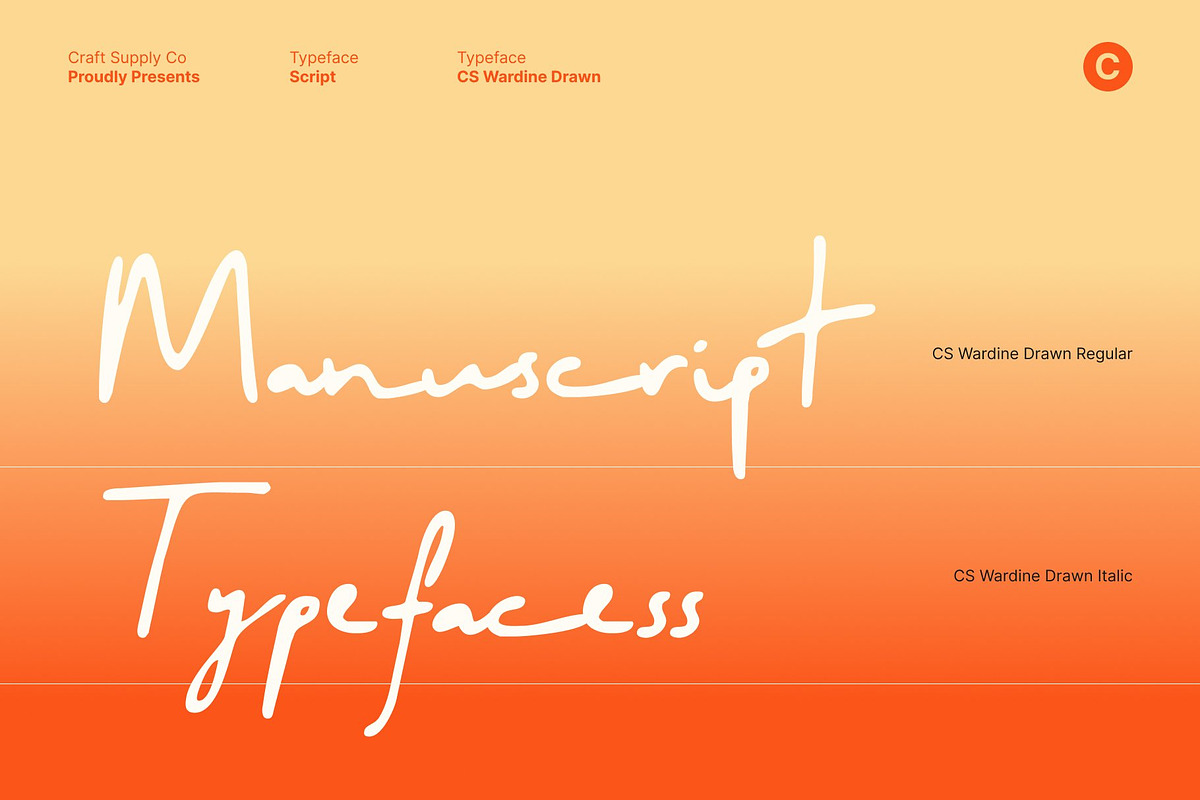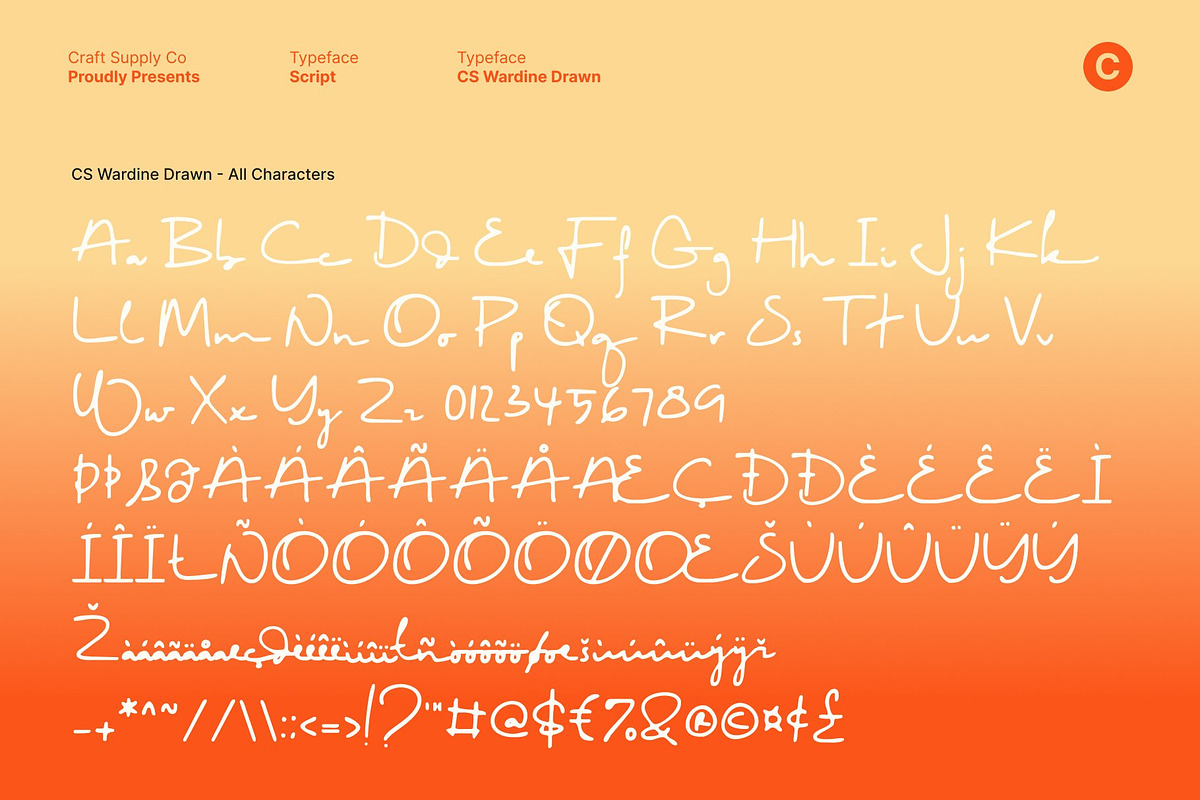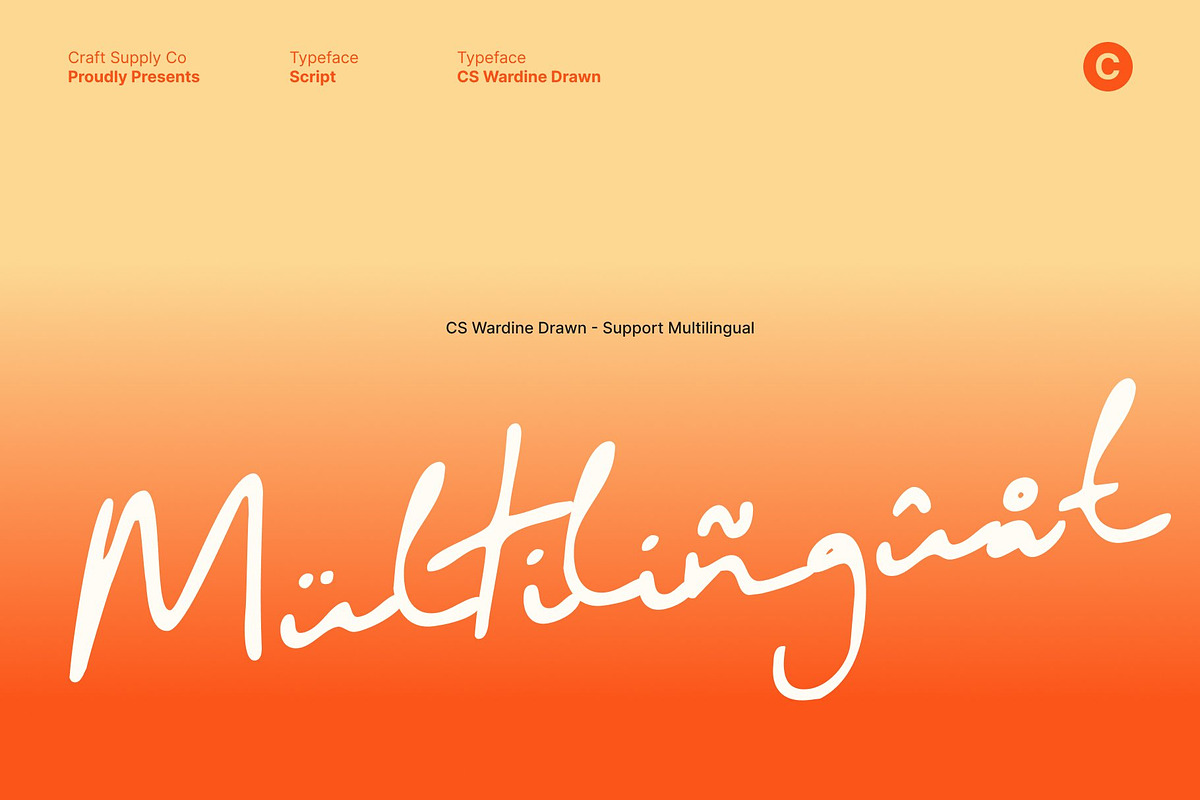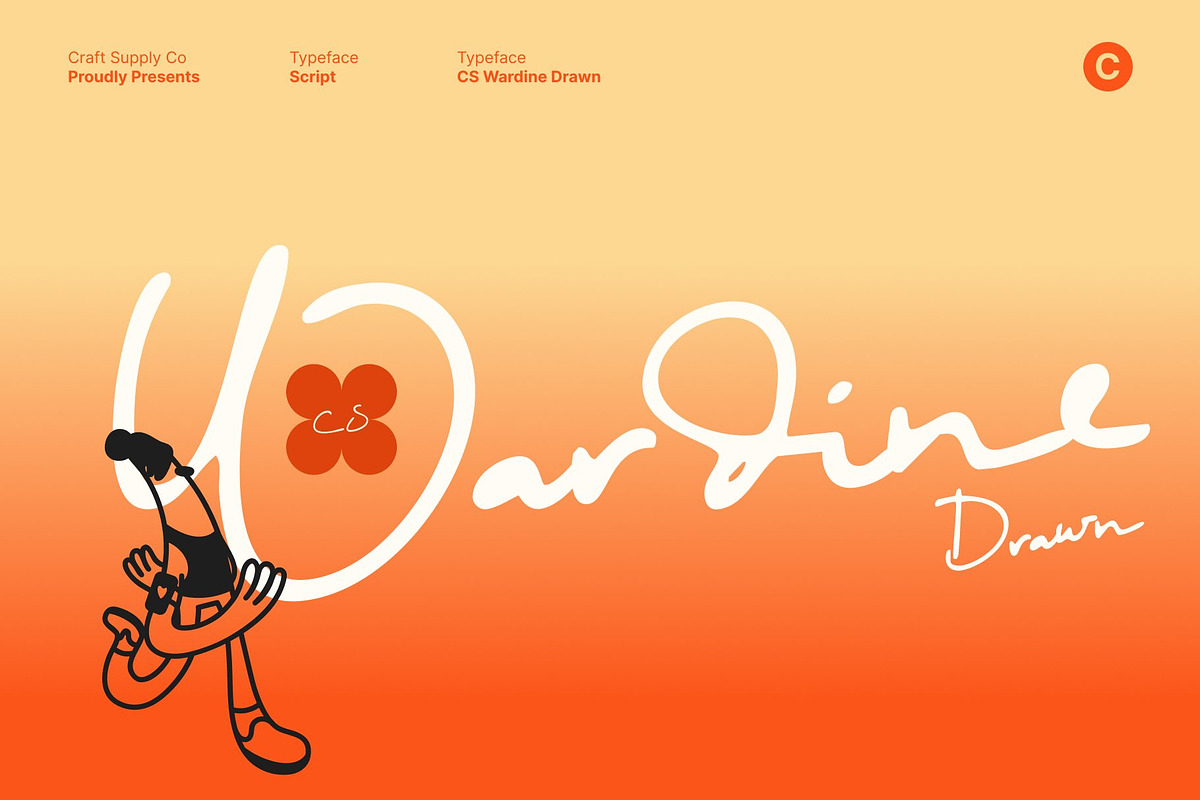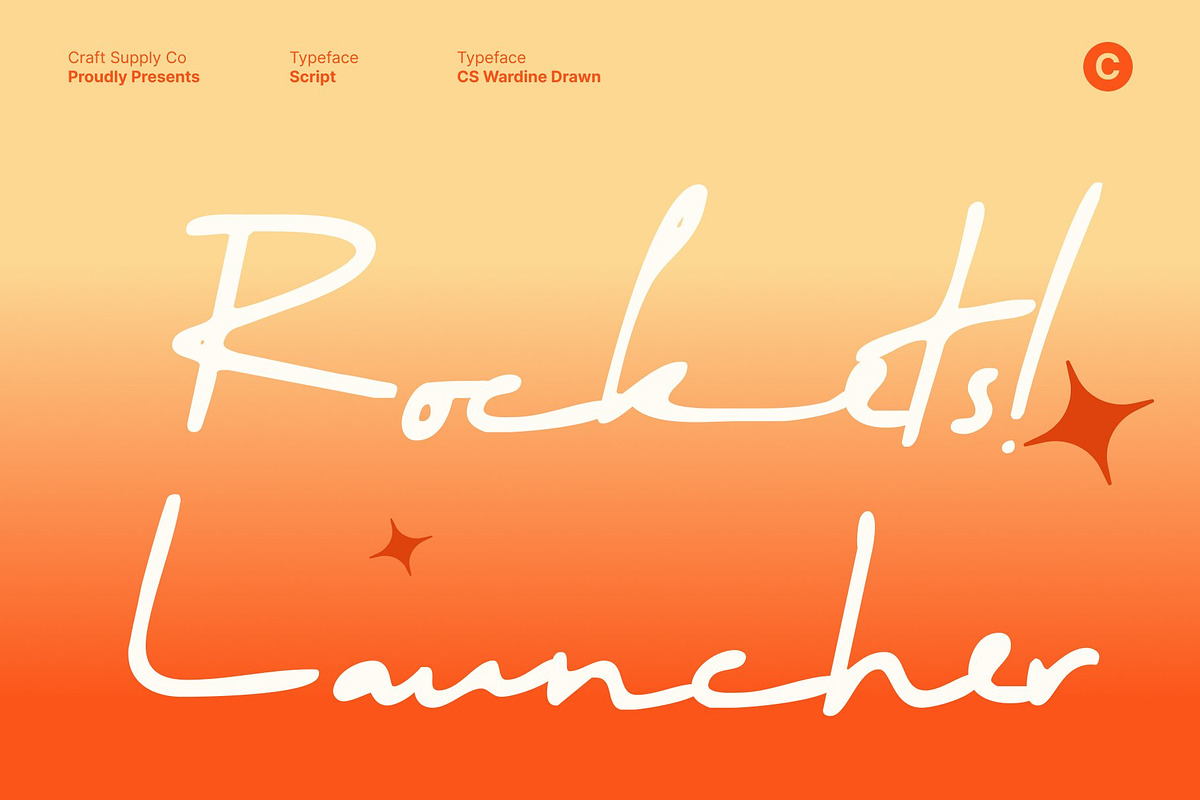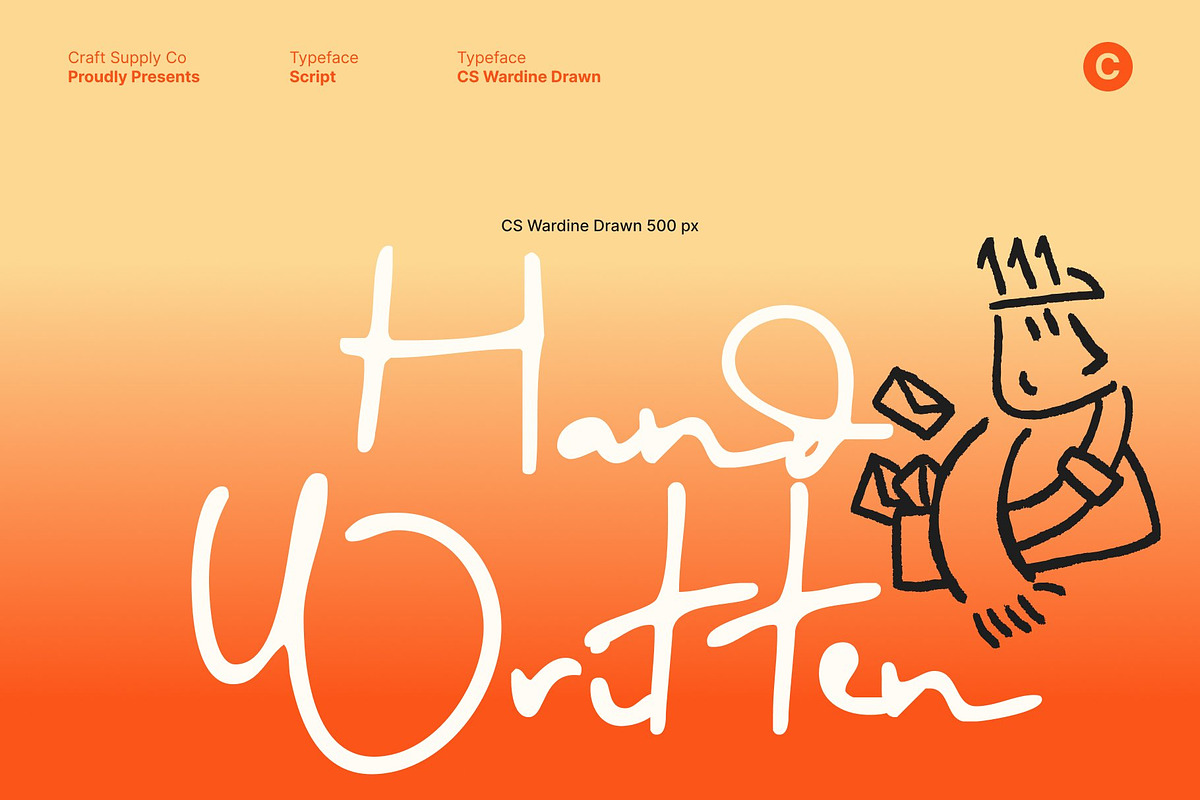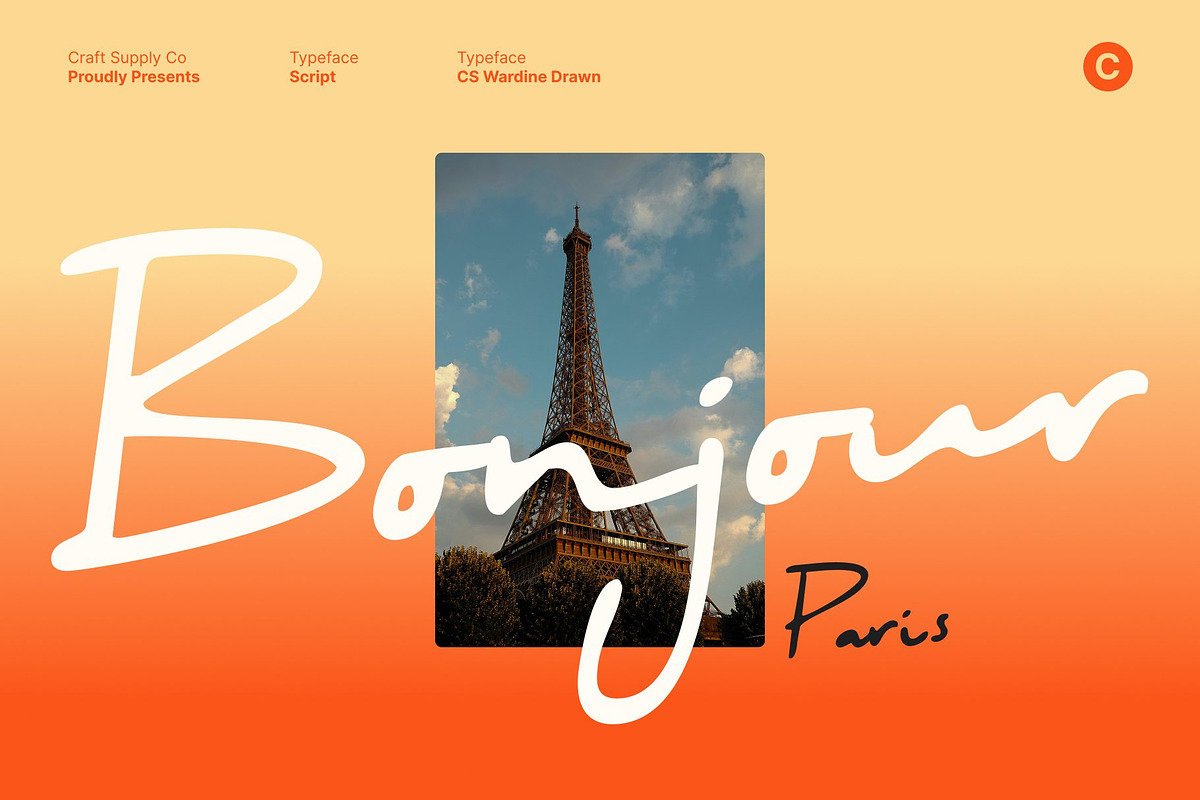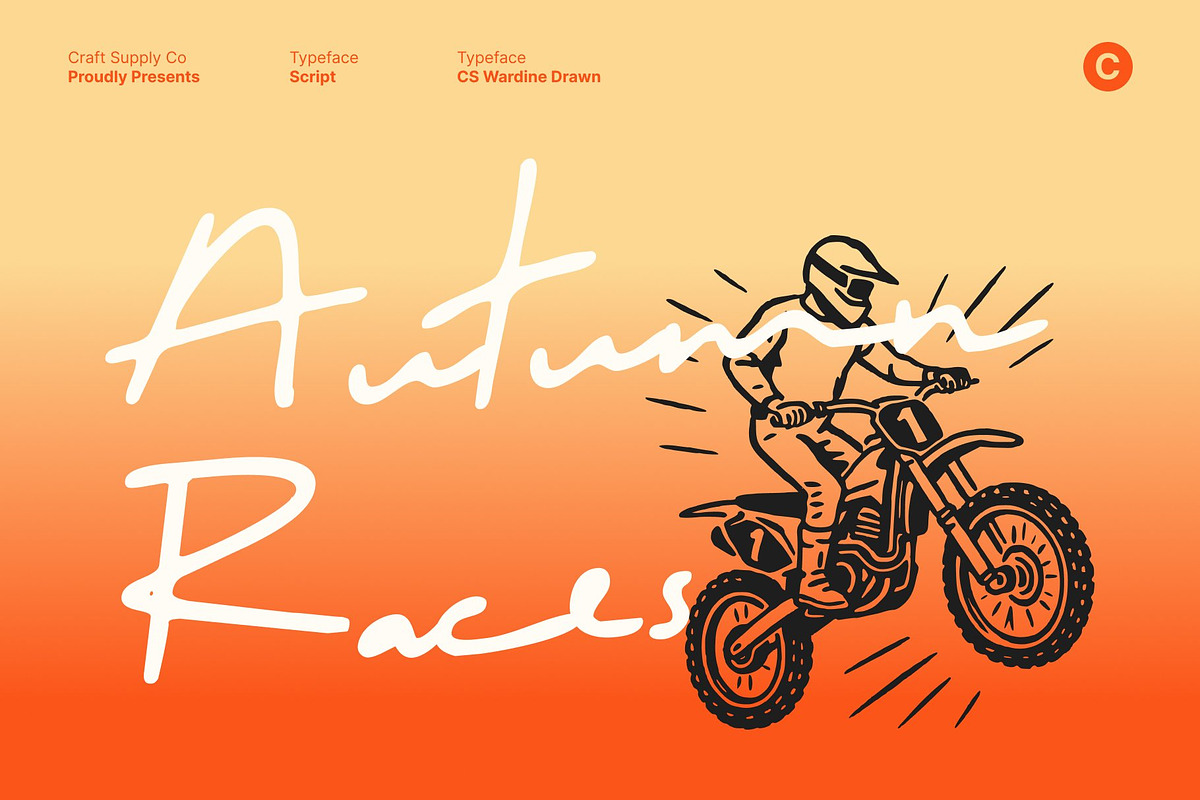
CS Wardine Drawn
CS Wardine Drawn – Soft Handwritten Beauty with Casual Charm
Expressive Handwritten Script Font with a Hand-Drawn Feel This is a soft, beautiful, and casual handwritten script font that captures the natural flow of real pen strokes. Enhanced with a gentle drawn texture, this font feels expressive yet effortless, delivering a friendly and approachable personality. Its relaxed handwriting style creates an authentic visual tone that feels personal, warm, and inviting.
Natural Strokes with Gentle Handcrafted Expression The letterforms feature smooth curves, organic connections, and subtle stroke variations inspired by natural handwriting. The drawn effect adds softness and depth, giving each character a handcrafted appearance while maintaining clear readability. This balance between expression and clarity makes the font both charming and versatile.
Warm Personality with Casual Elegance With its easygoing and expressive nature, this font brings a warm, human touch to any design. It communicates emotion naturally, making text feel heartfelt and genuine rather than mechanical. The soft, flowing structure adds comfort and sincerity, perfect for designs that aim to feel friendly and emotionally engaging.
Perfect for Personal Branding and Inviting Designs This font ideal for personal branding, inspirational quotes, casual invitations, lifestyle content, and social media graphics. Its soft handwritten charm enhances designs that value authenticity, warmth, and approachability. Whether used for friendly branding or expressive messaging, this font delivers a natural, welcoming handwritten presence full of character.
- CS Wardine Drawn Regular
- CS Wardine Drawn Italic